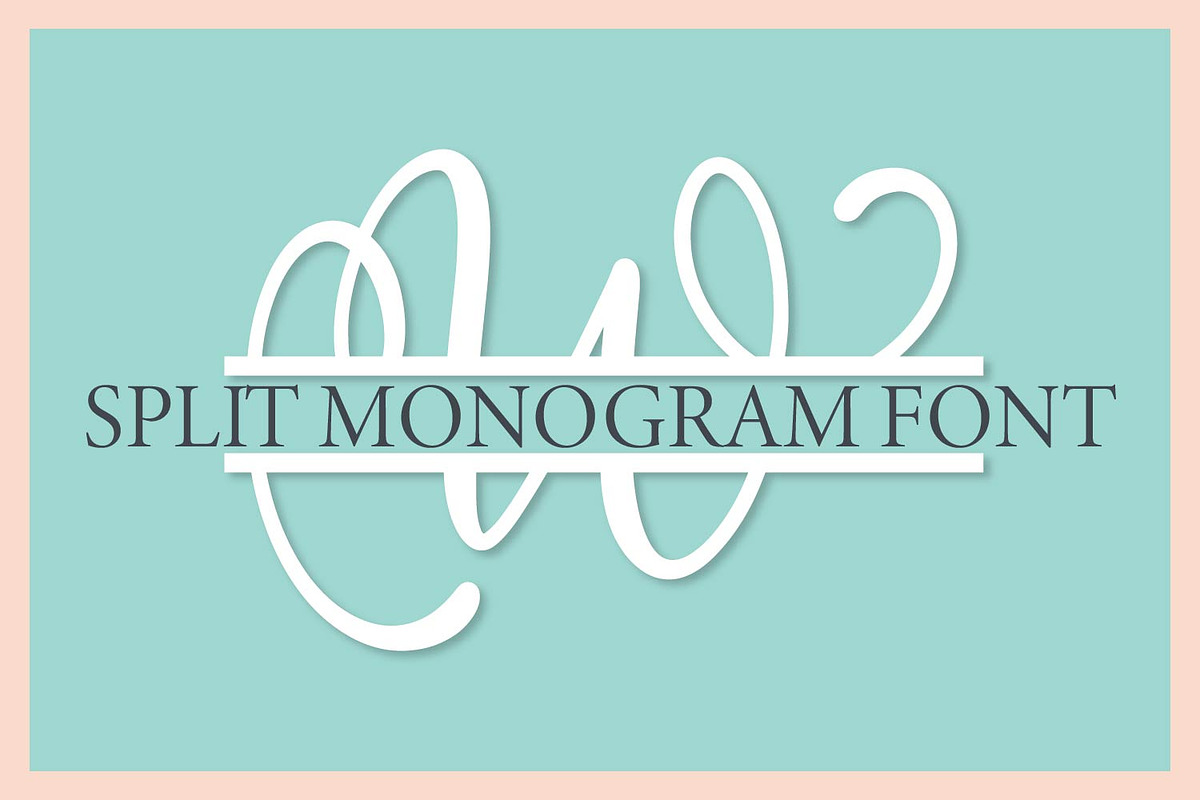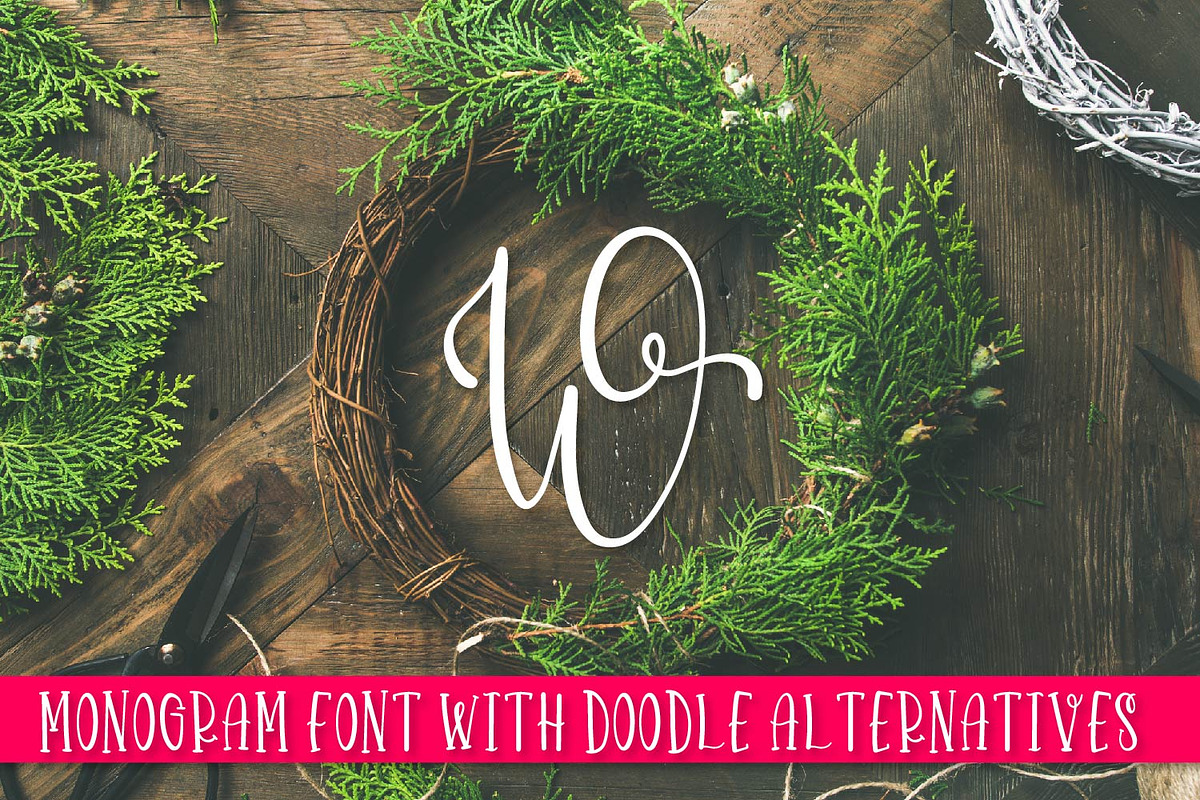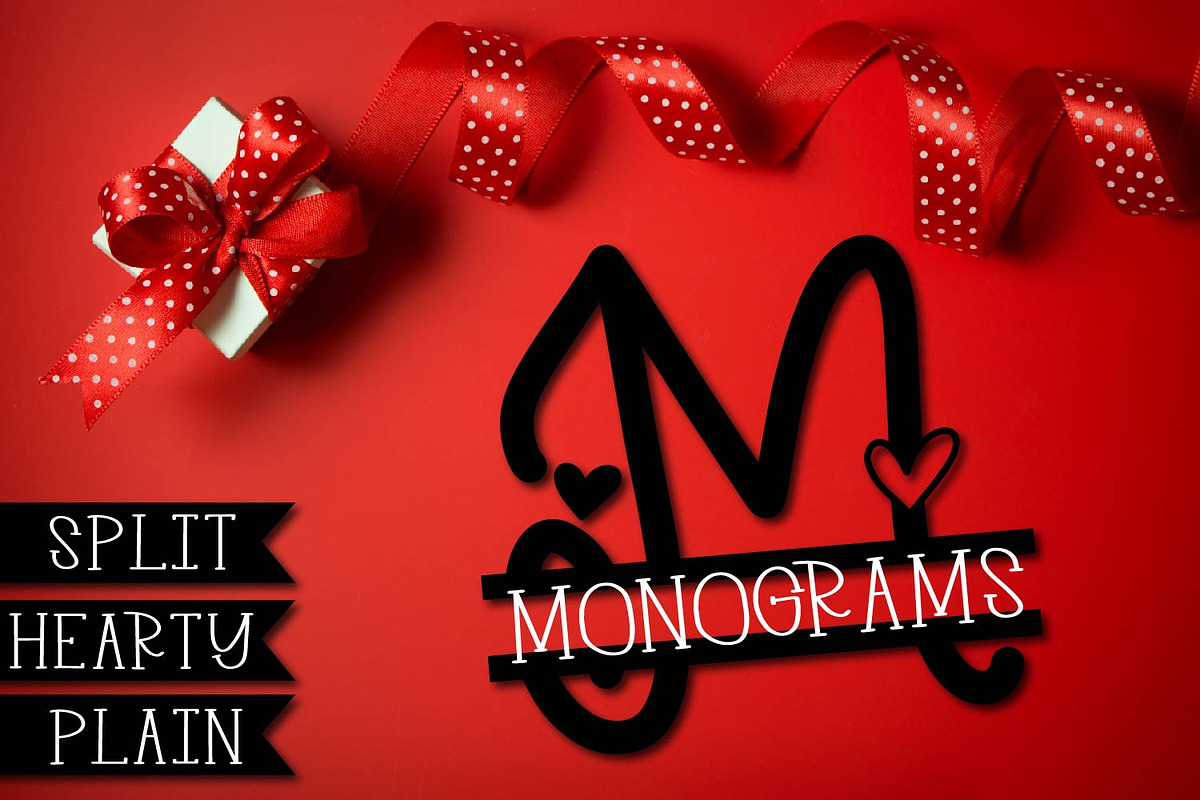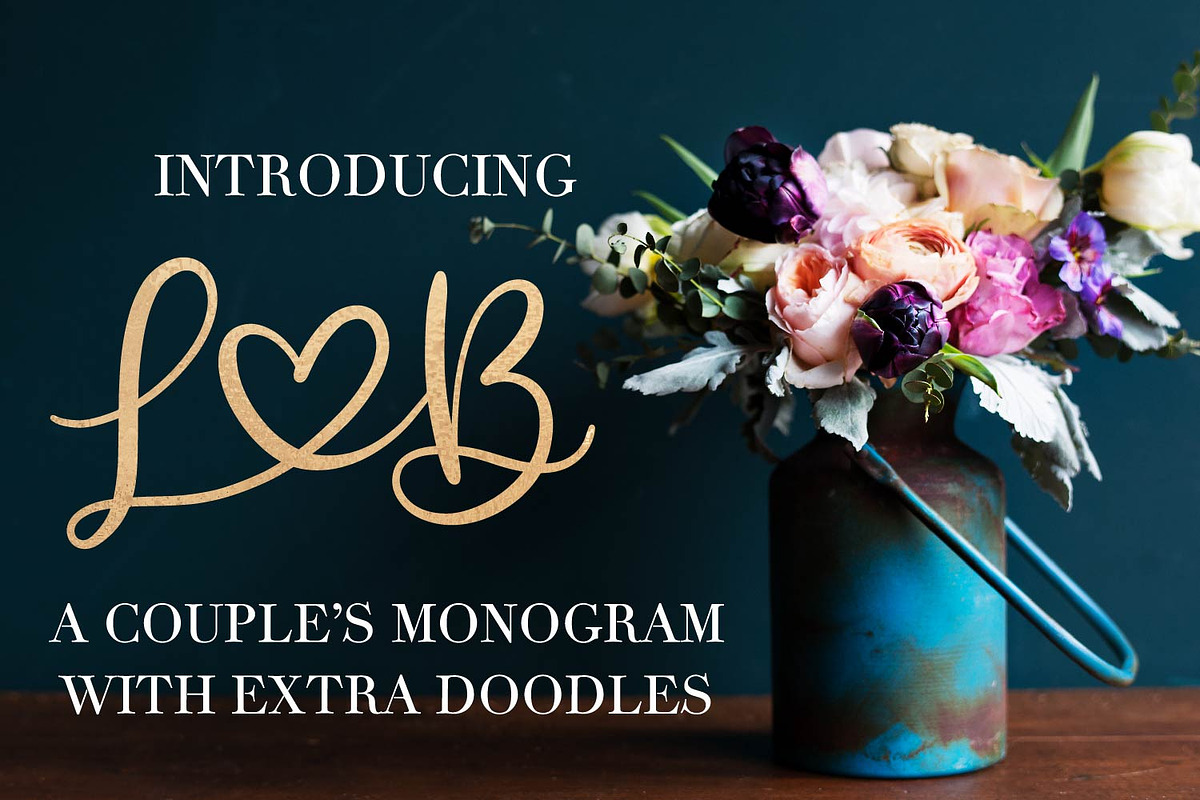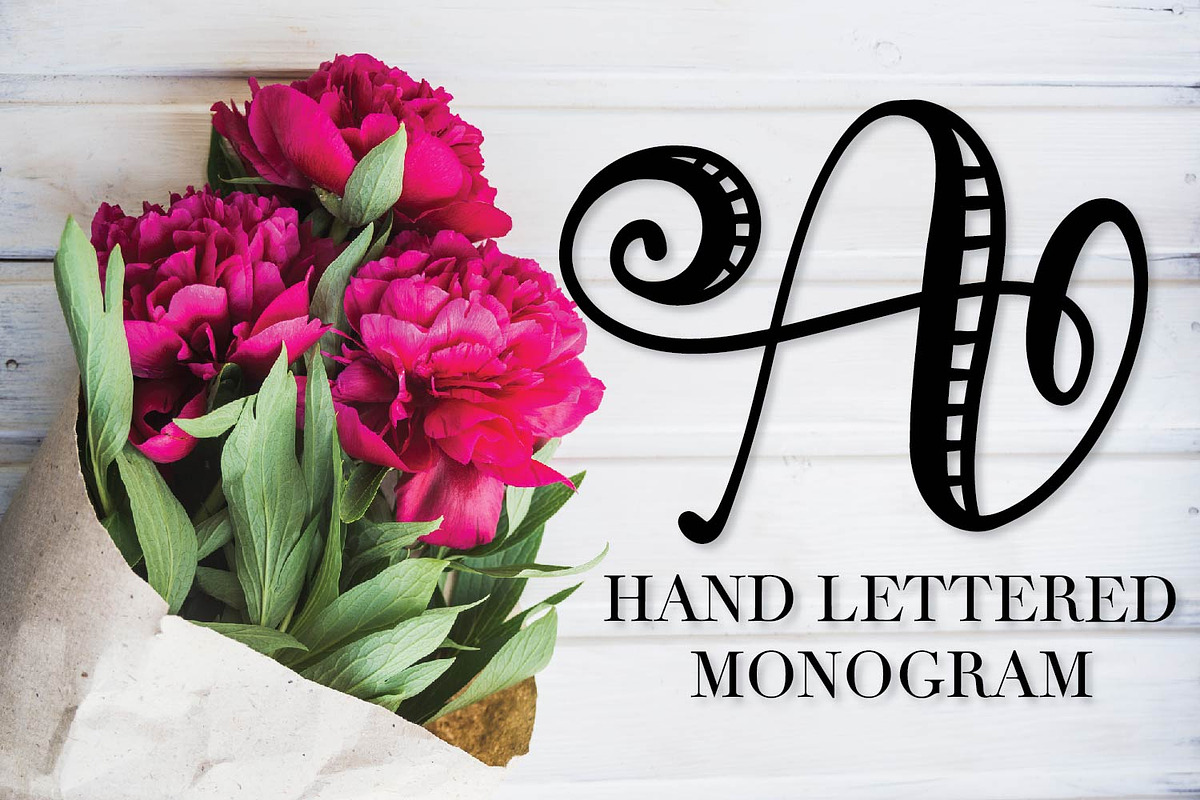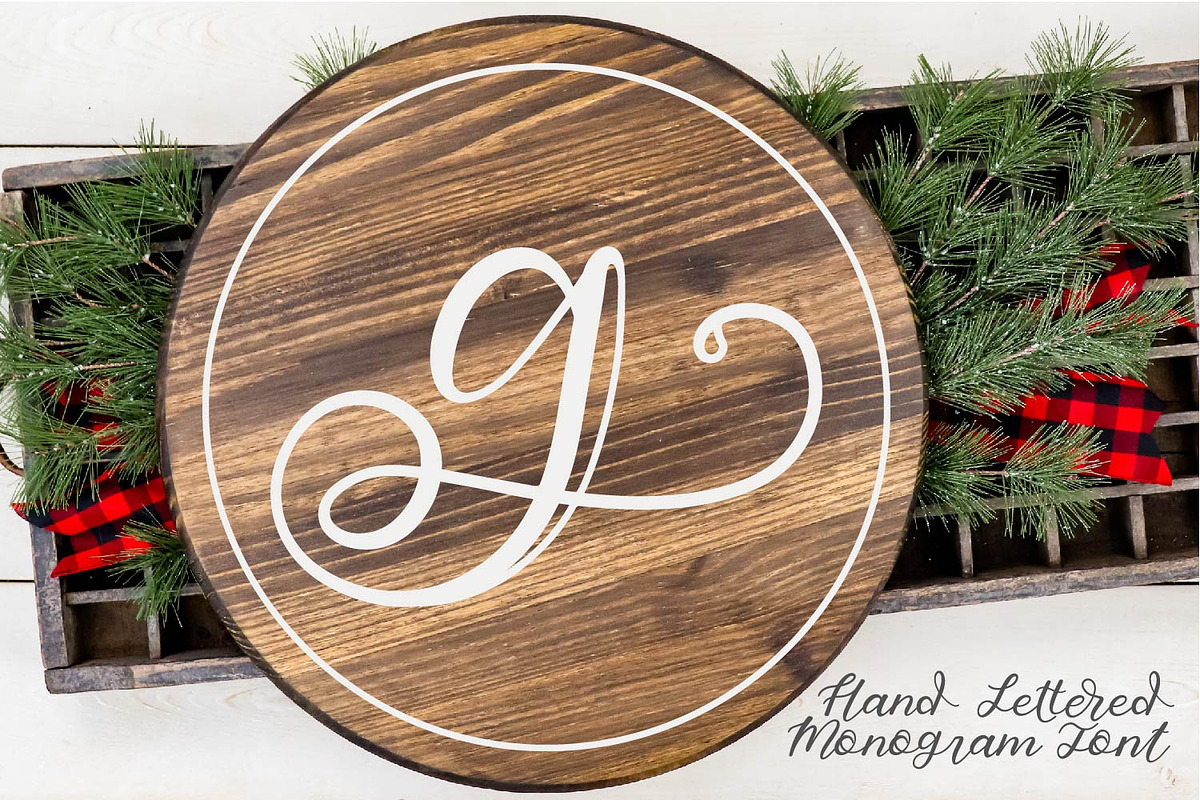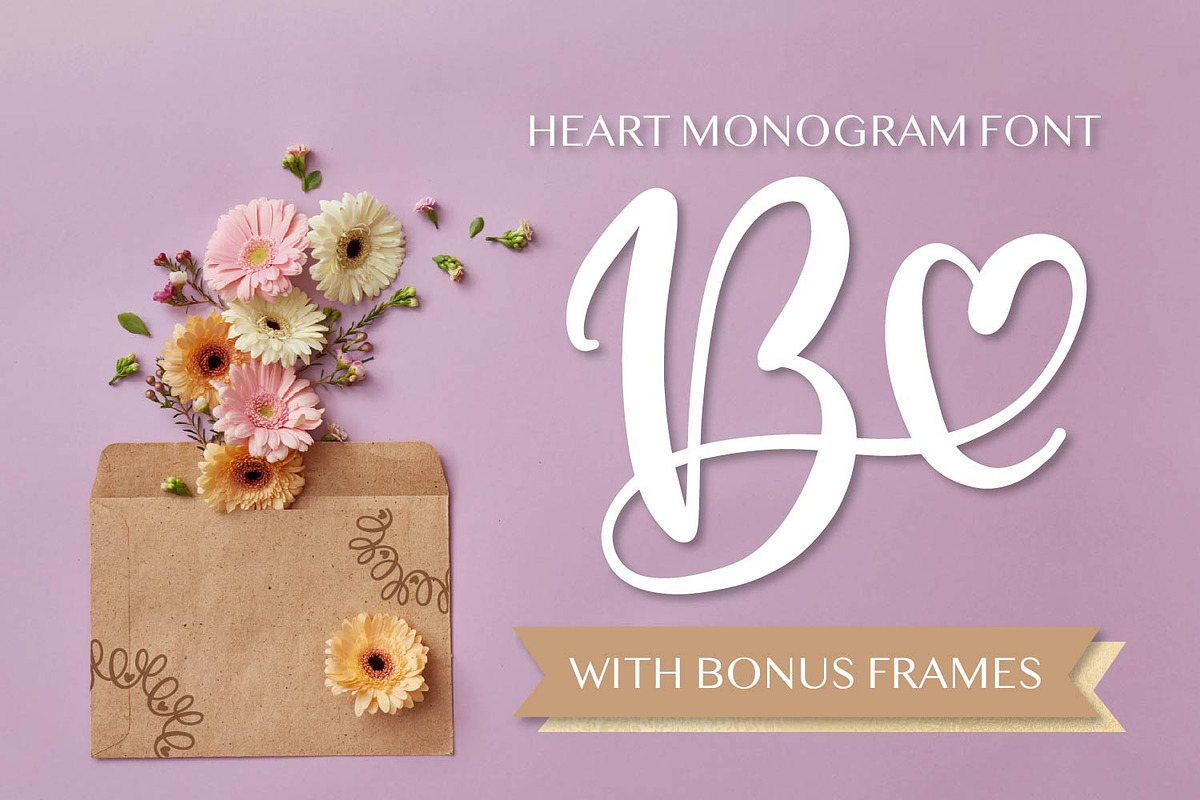
13 Font Pack - Monogram Font Bundle
Baseball Monogram Font Hand Lettered Monogram Caps Font Couple's Monogram Split Monogram Font (Use upper & lower case to get both sides) Split Heart Monogram Trio (Use upper & lower case on split versions to grab both sides) Monogram Hand Lettered Font with Doodle Alternatives Hearty Monogram with Bonus Frames Striped Monogram Font Initially Hand Lettered Monogram Font